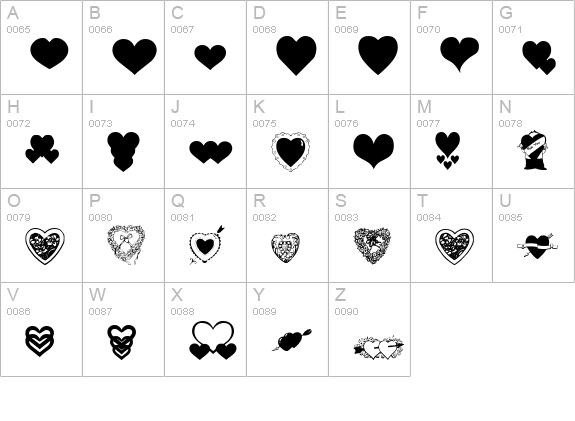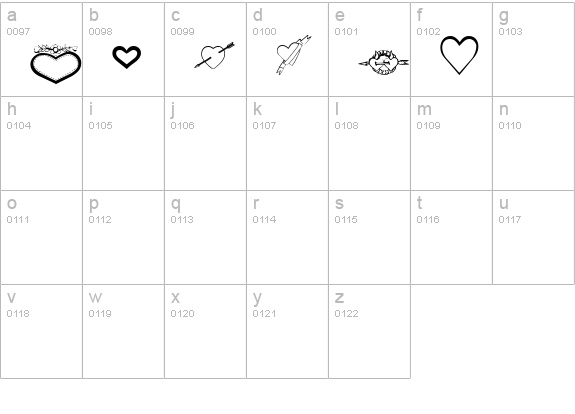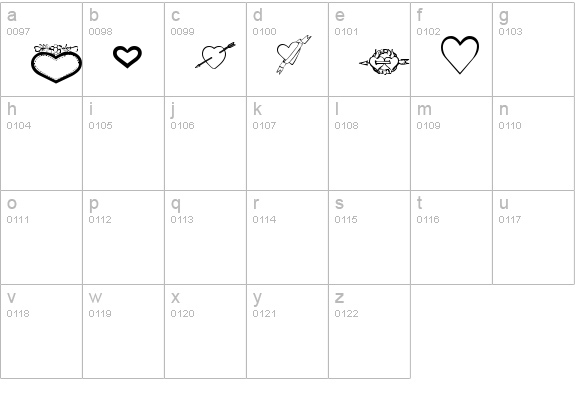
Dizzinz SweetHearts Font Details
Dizzinz SweetHearts font is a whimsical and charming typeface that is perfect for adding a touch of sweetness to your designs. This delightful font features cute heart-shaped details that will make your text stand out with a playful and romantic flair. Whether you are creating Valentine's Day cards, wedding invitations, or simply want to add a touch of love to your projects, Dizzinz SweetHearts font is sure to capture hearts and spread joy. The best part is that Dizzinz SweetHearts font is freely available to download at FontsMarket.com. This means that you can easily access this adorable font and use it in your personal and commercial projects without any restrictions. So go ahead and bring a little extra love and charm to your designs with Dizzinz SweetHearts font today!